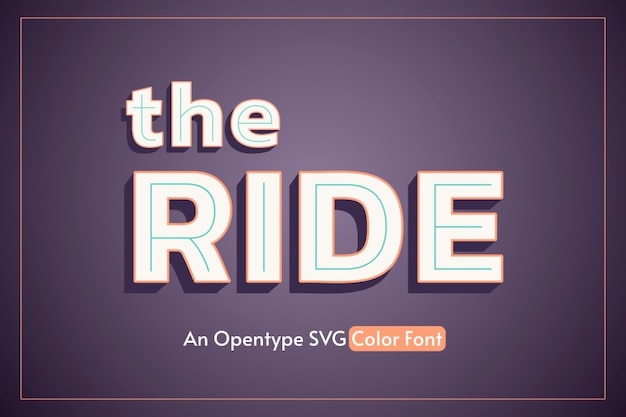
"The Ride" font takes you on a thrilling journey with its dynamic combination of lines and 3D effects. Each letter is a bold statement, merging inline elements for a captivating visual experience. Perfect for designs seeking to add depth and dimension, inviting audiences on an exhilarating ride through creativity and style.